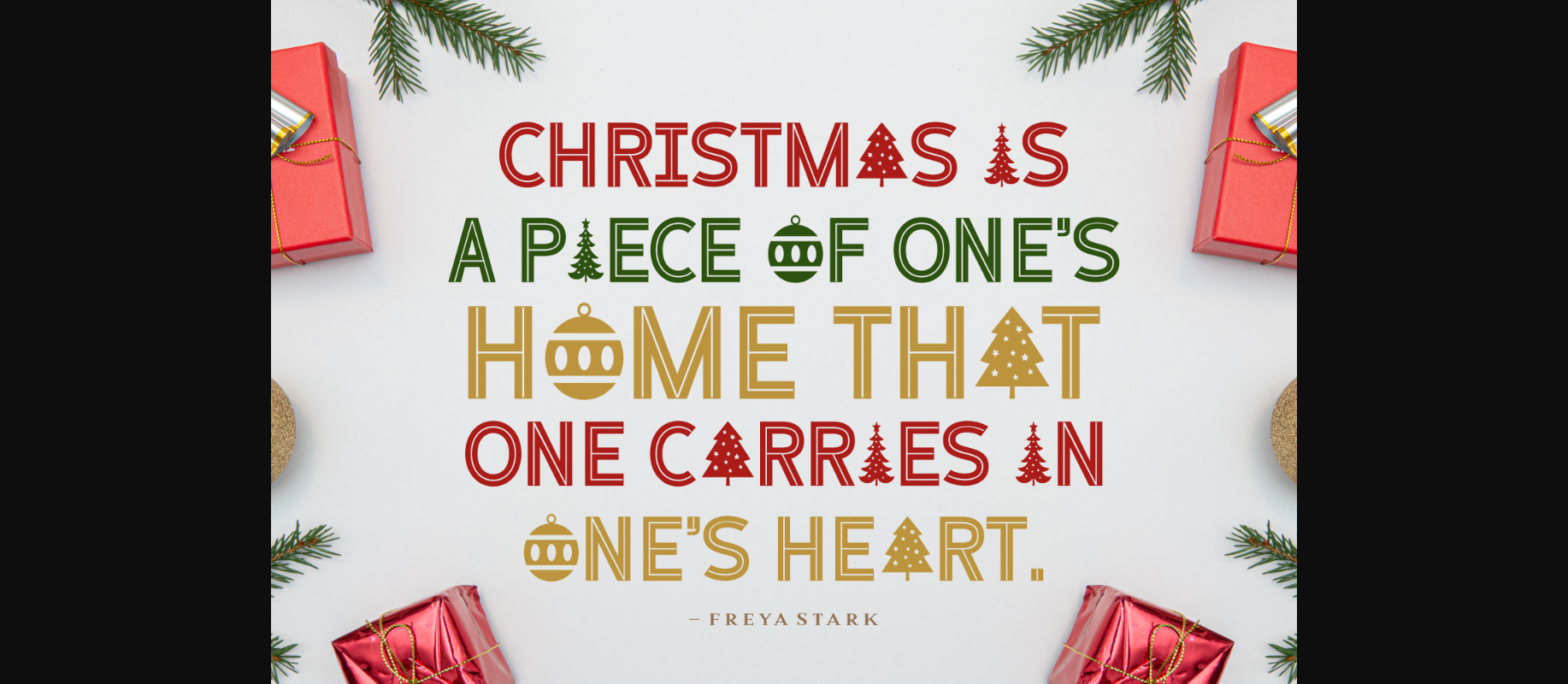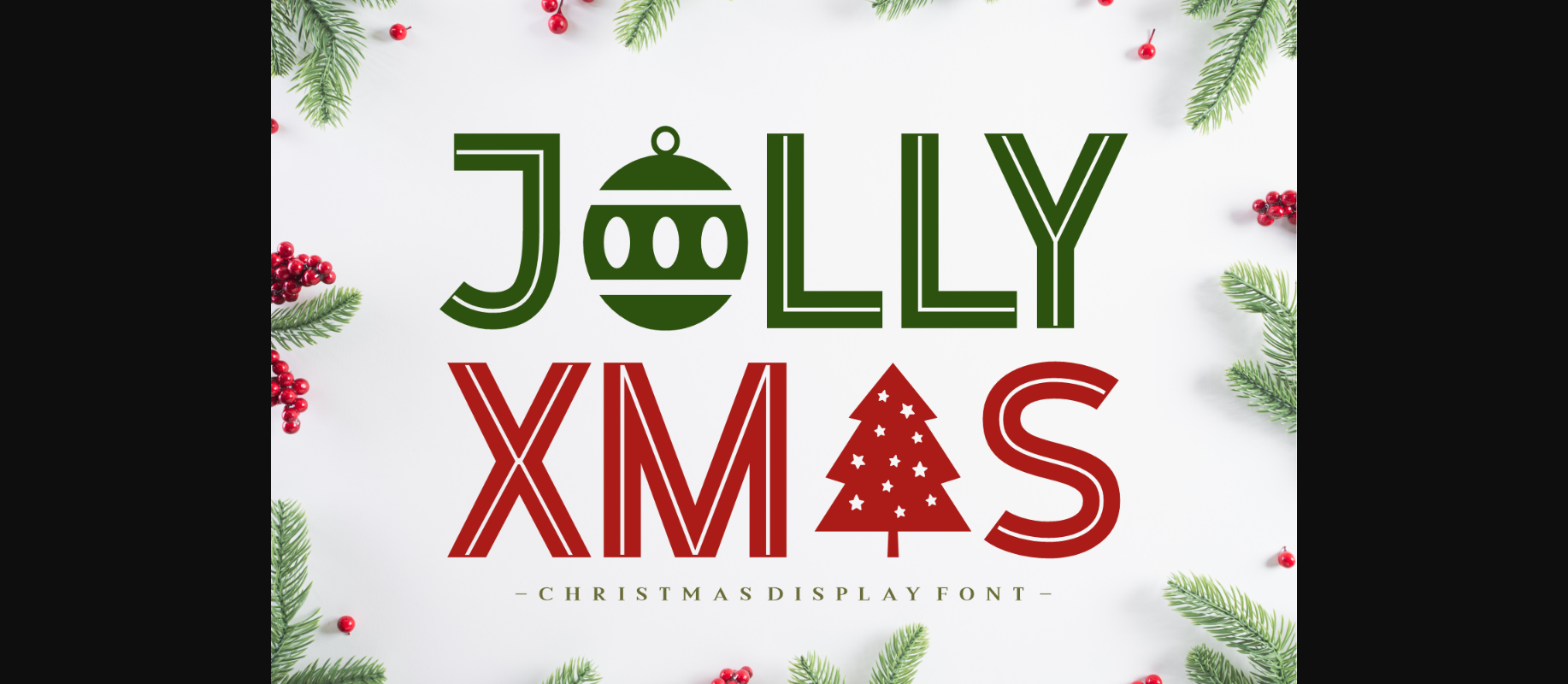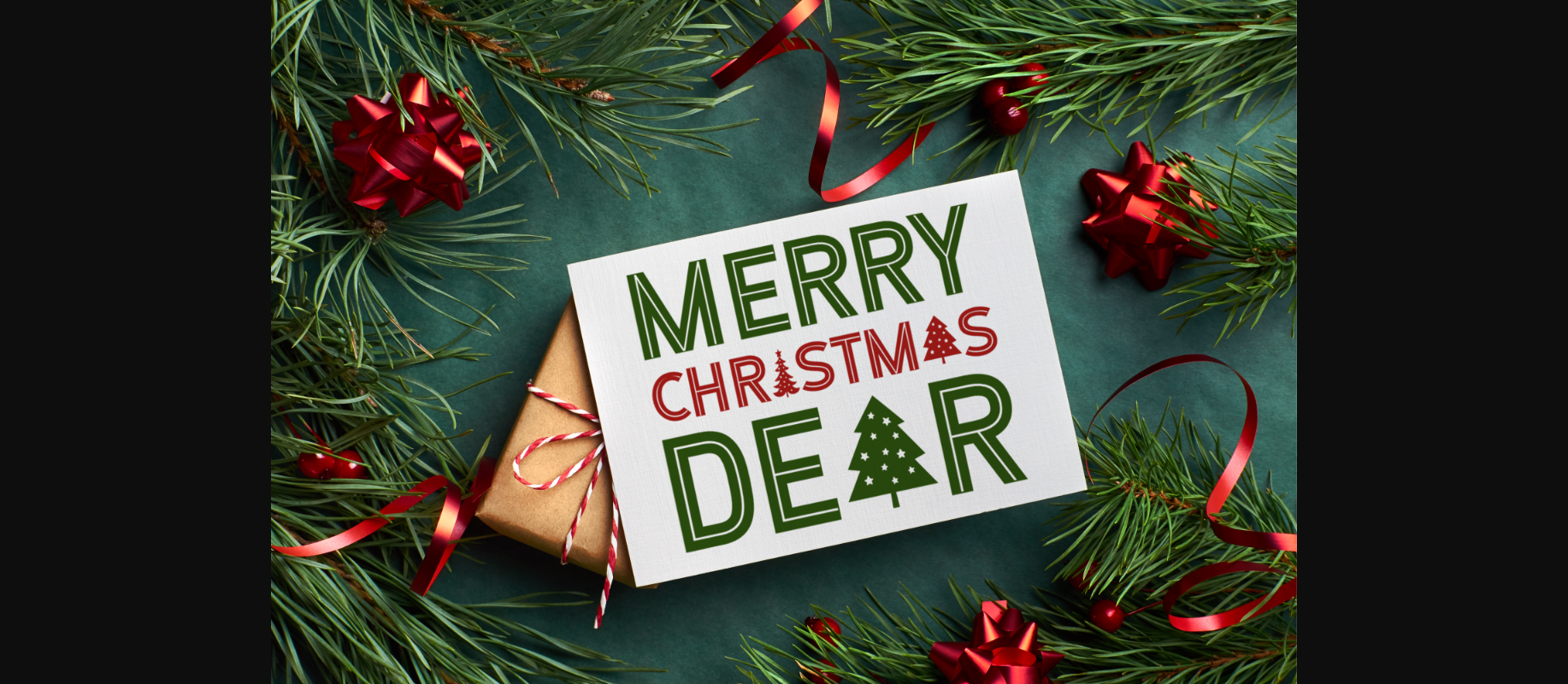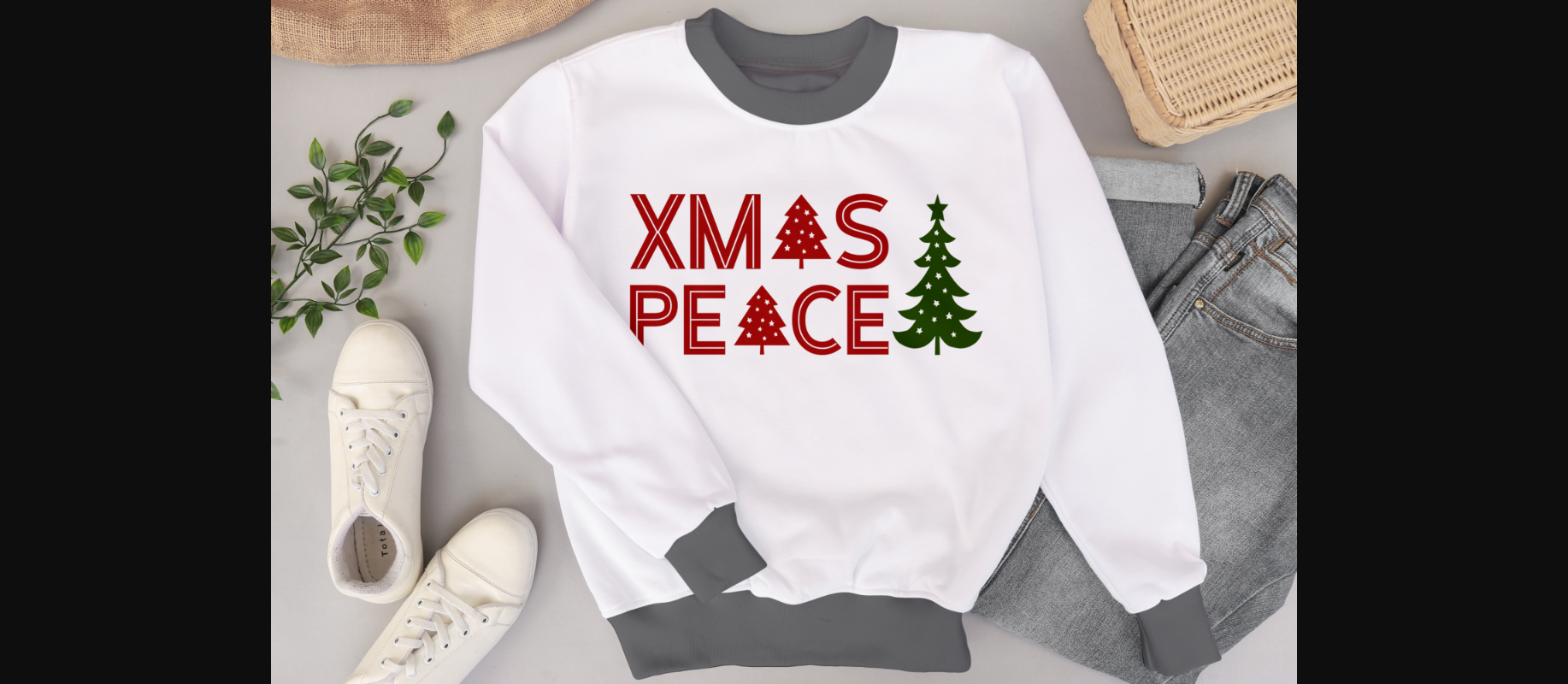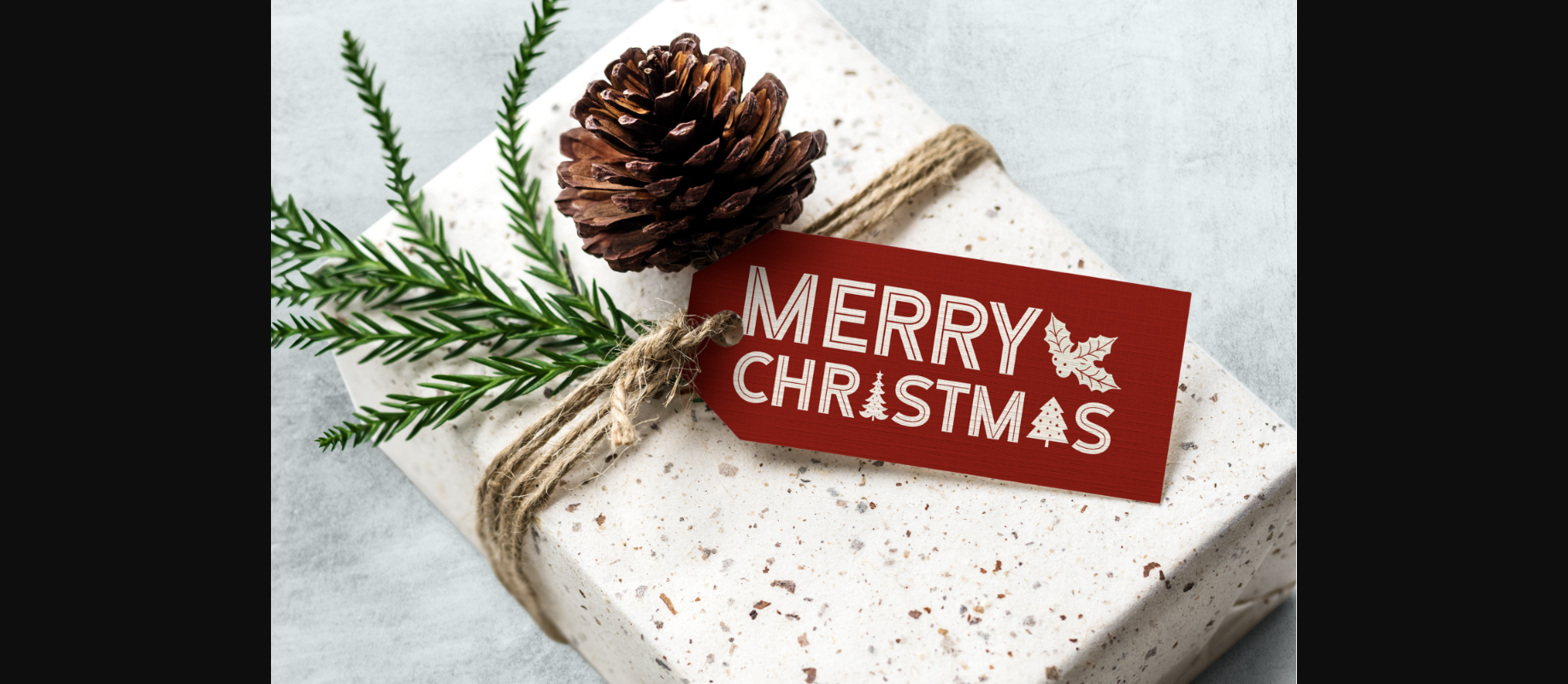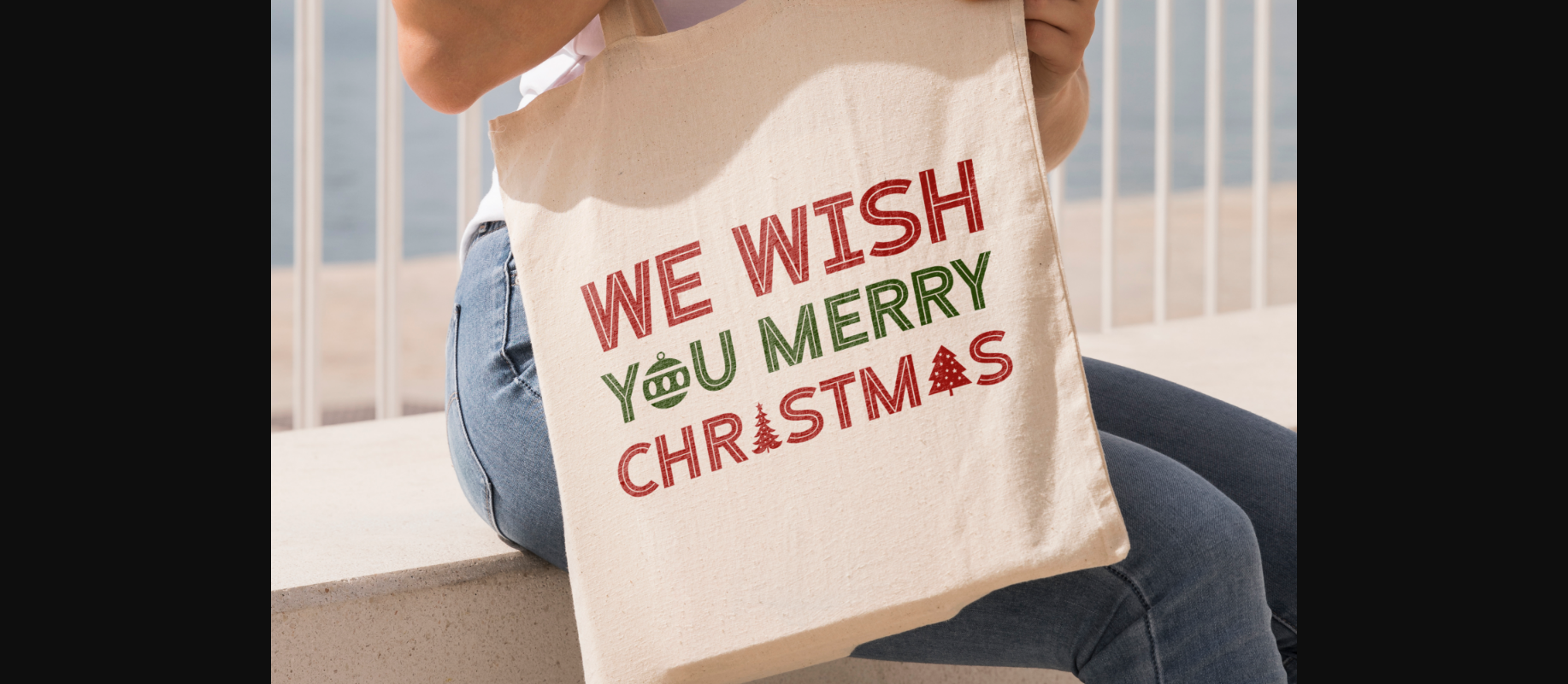
Jolly Xmas Font
About Jolly Xmas Font
Jolly Xmas font is a festive and playful typeface that captures the spirit of Christmas. With its whimsical design, it’s the perfect choice for adding a touch of holiday cheer to your seasonal designs, greetings, and decorations. Let your text spread joy and merriment with Jolly Xmas!